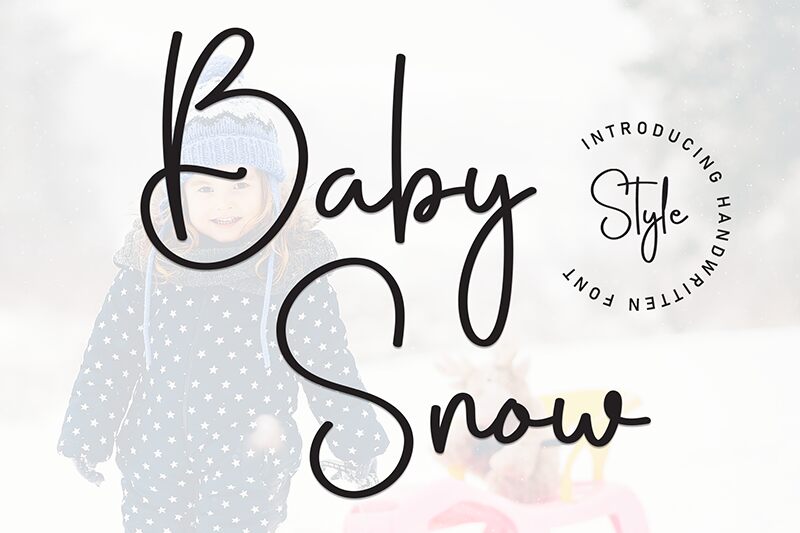
Baby Snow
Baby Snow font by Scratchones emanates natural flow, casual aesthetic, and contemporary appeal. This light handwritten font has a personal touch and elegant handwritten feel that easily translates to almost any project. The warm texture combined with slanted script letters makes the font resemble an author’s handwriting.